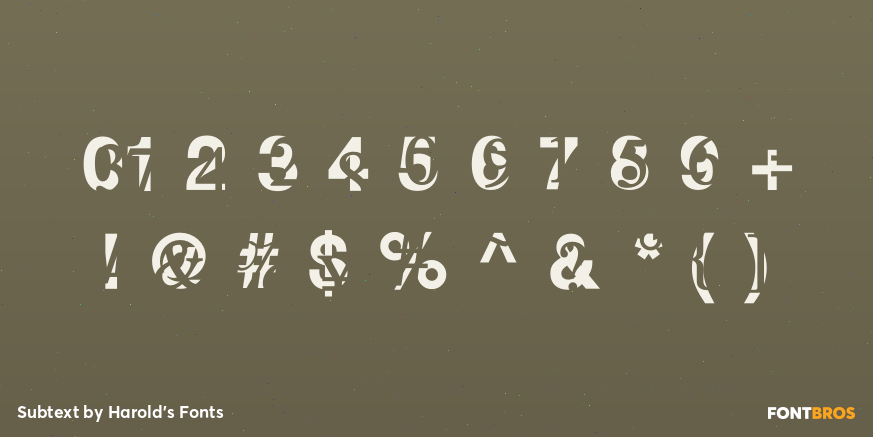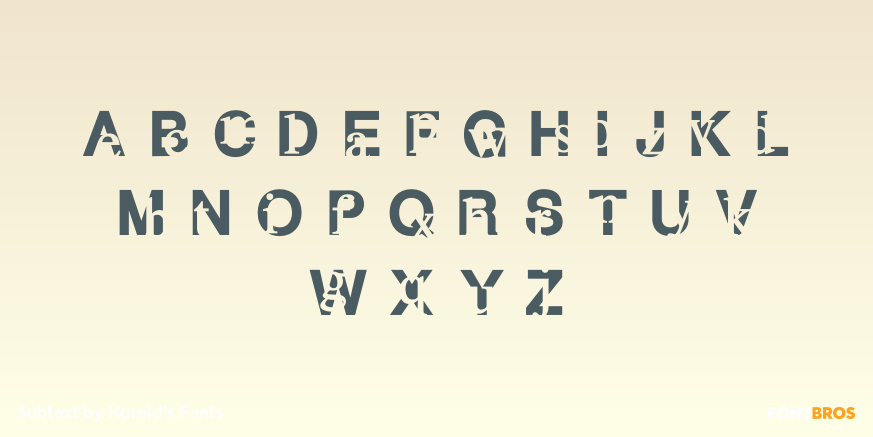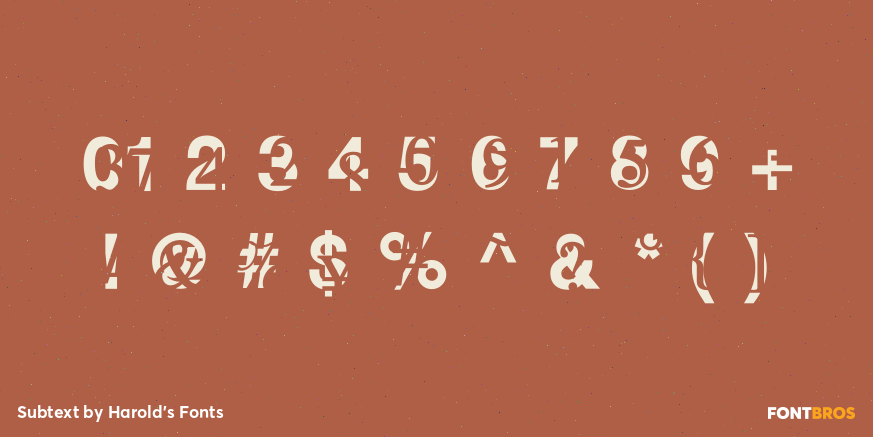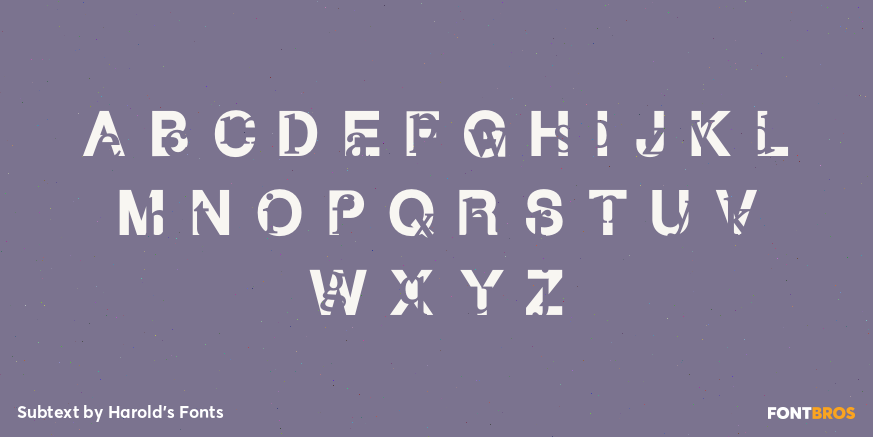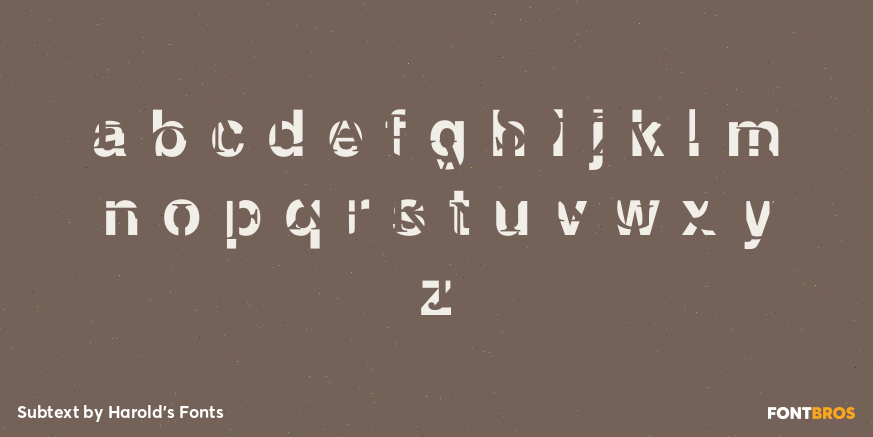
Subtext
Font Family by Harold's Fonts
SUBTEXT is designed to obscure your words, make them less legible, less straightforward, less obvious. Suppose you're a spy, a lawyer, or an offbeat poet. The basic letter forms are bold sans serif with a serif letter subtracted from each. As you type, a second, seemingly random character also appears. The earlier version of this font did not have lowercase; version 1.5 has an expanded character set and improved spacing and kerning.